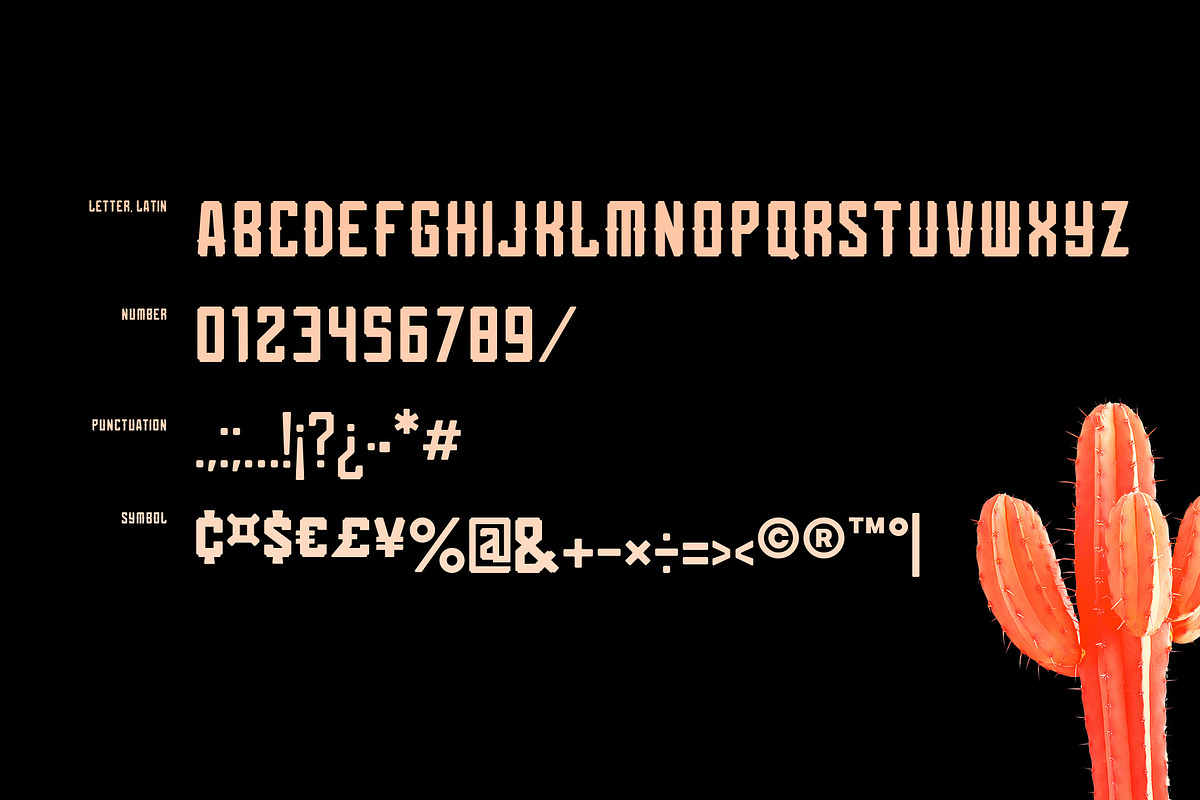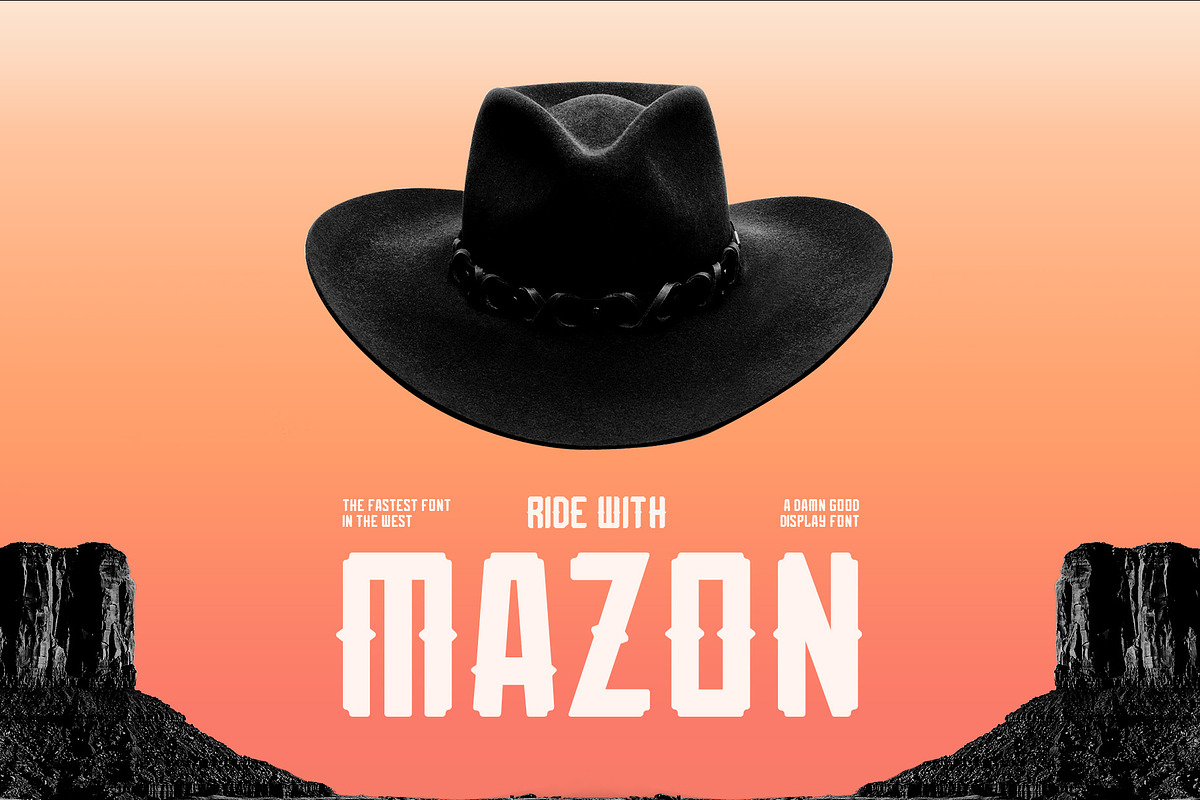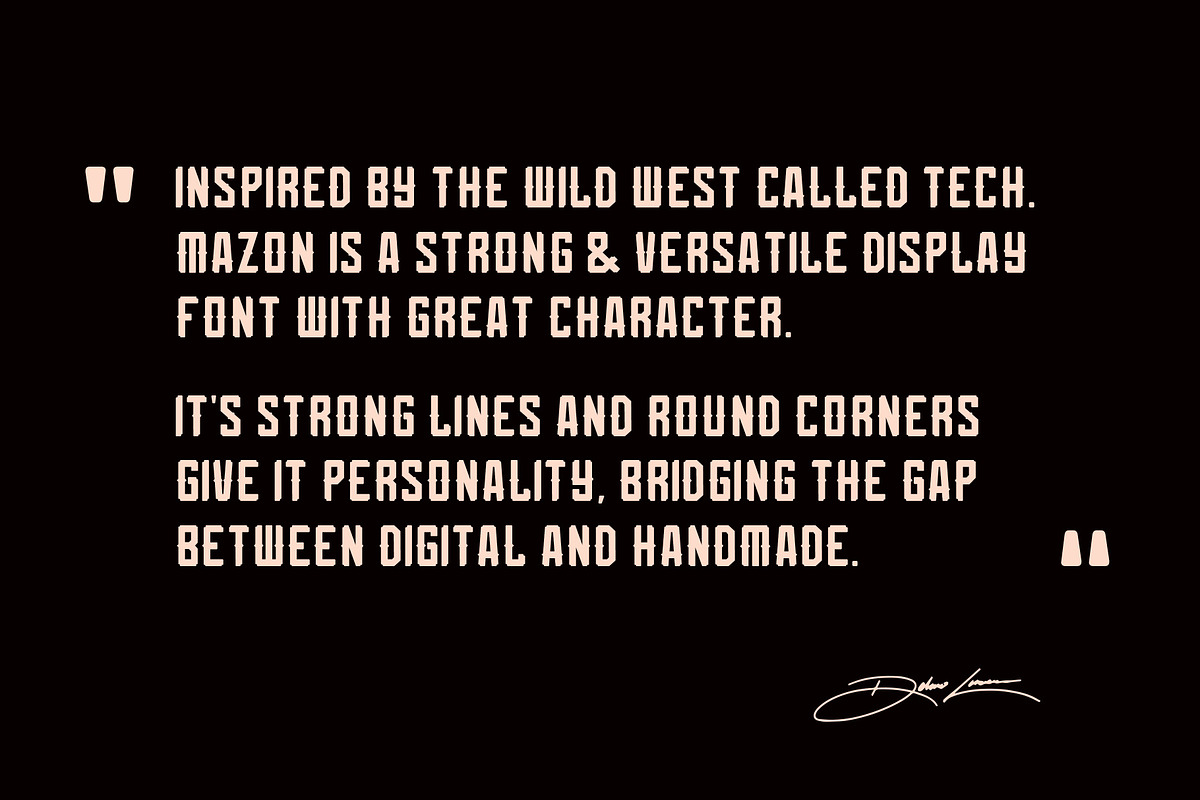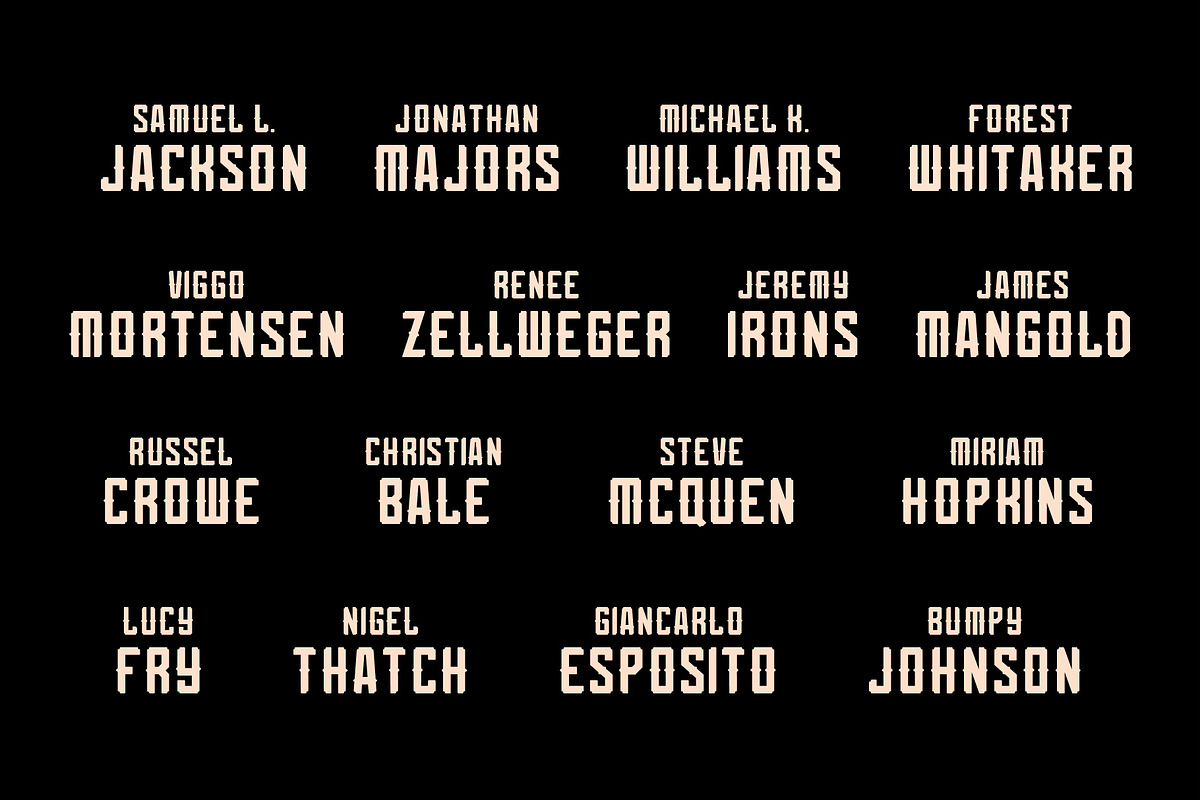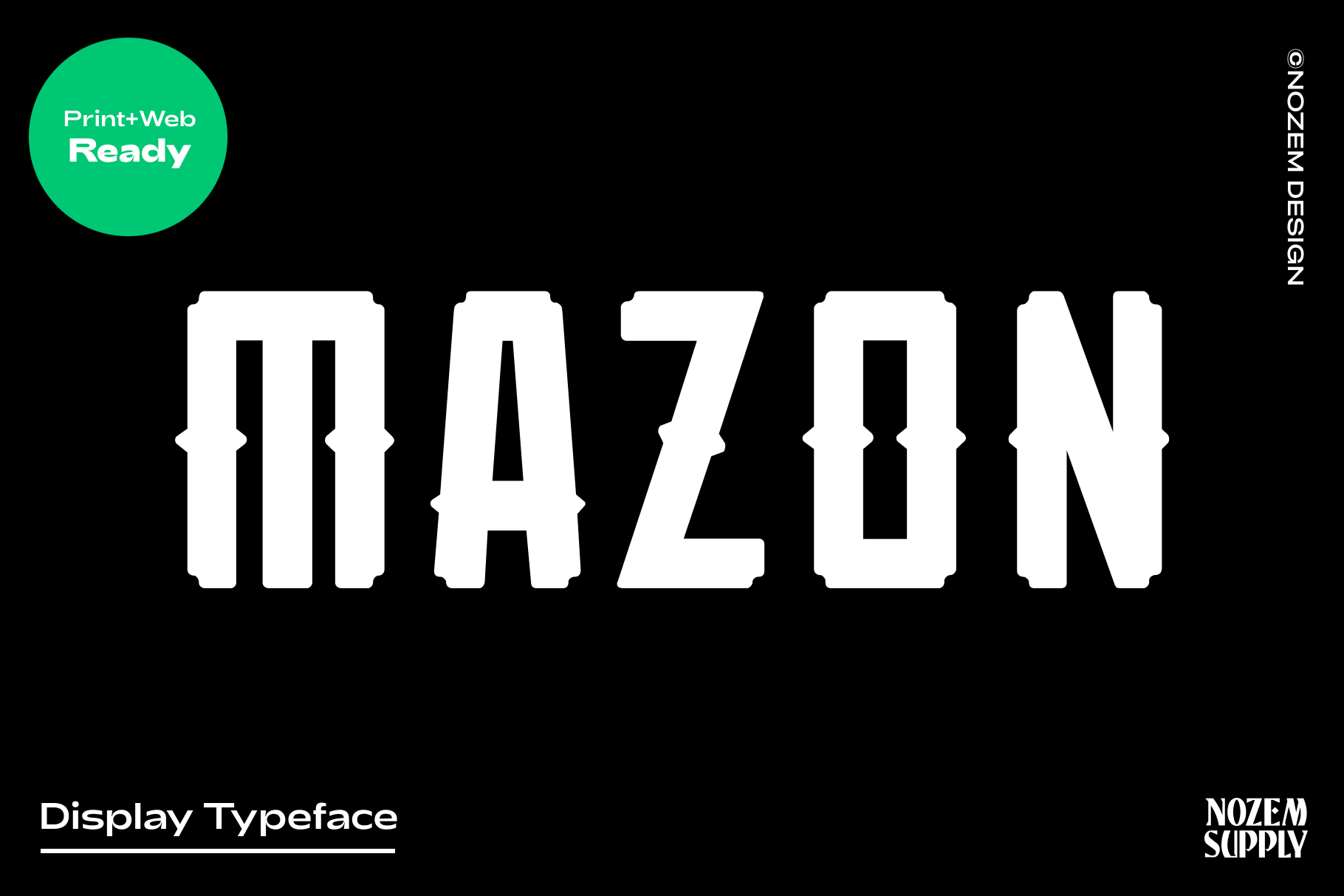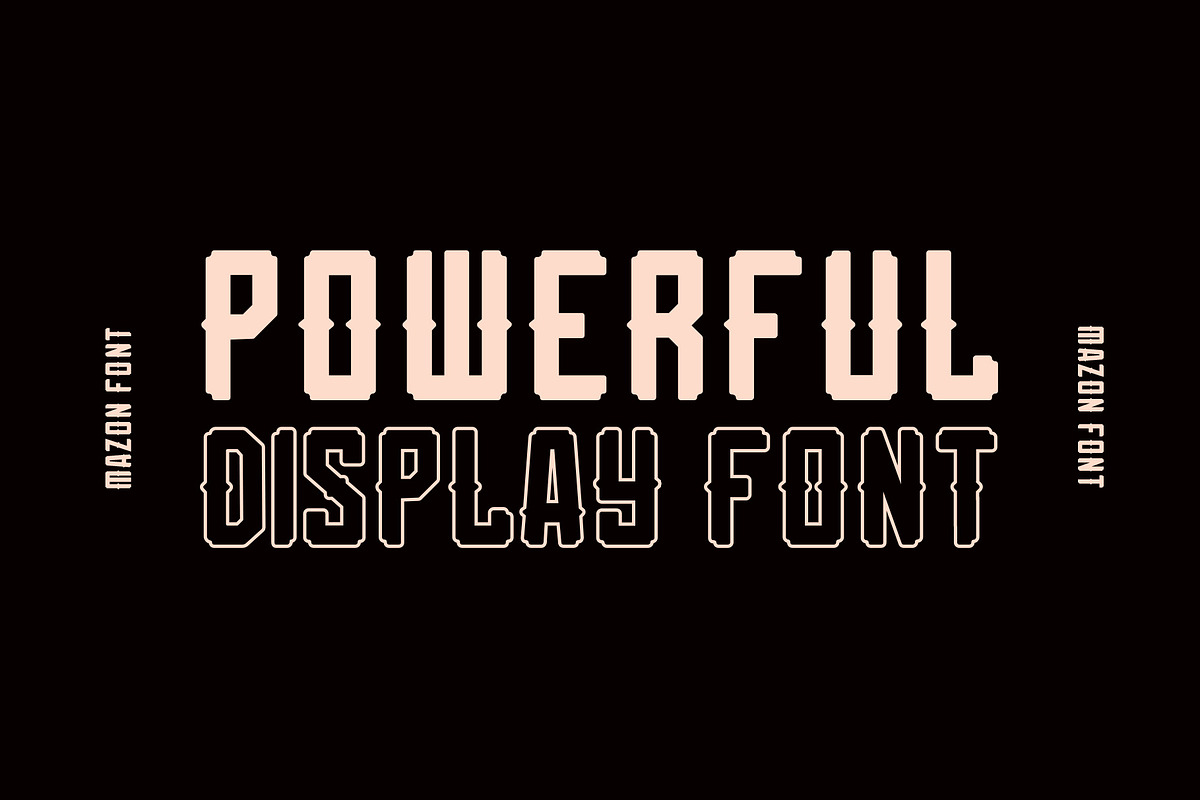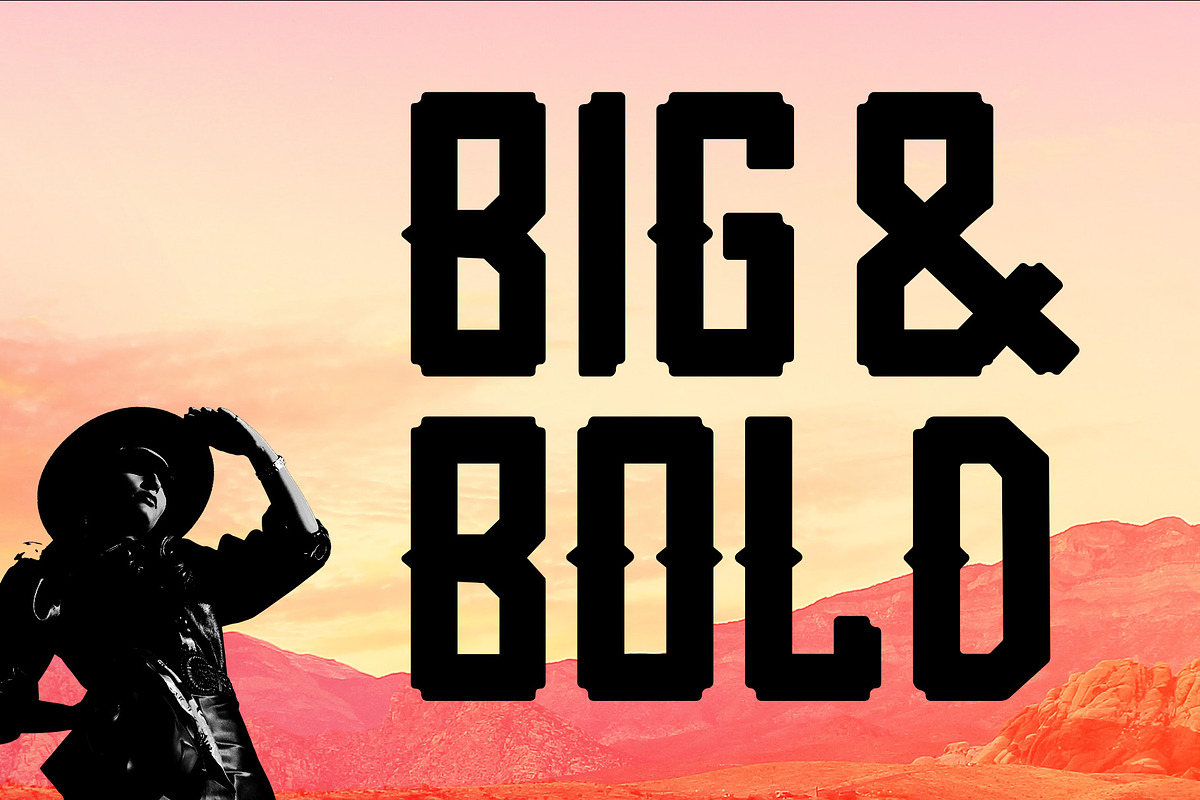
Mazon - Display Typeface
Inspired by the wild west called tech. The fastest font in the west! Mazon is a strong & versatile display font with great character. Its strong lines and round corners give it personality, bridging the gap between digital and handmade.
Display typeface, Numbers, Punctuation and Multilingual support. • Set of arrows and symbols included.